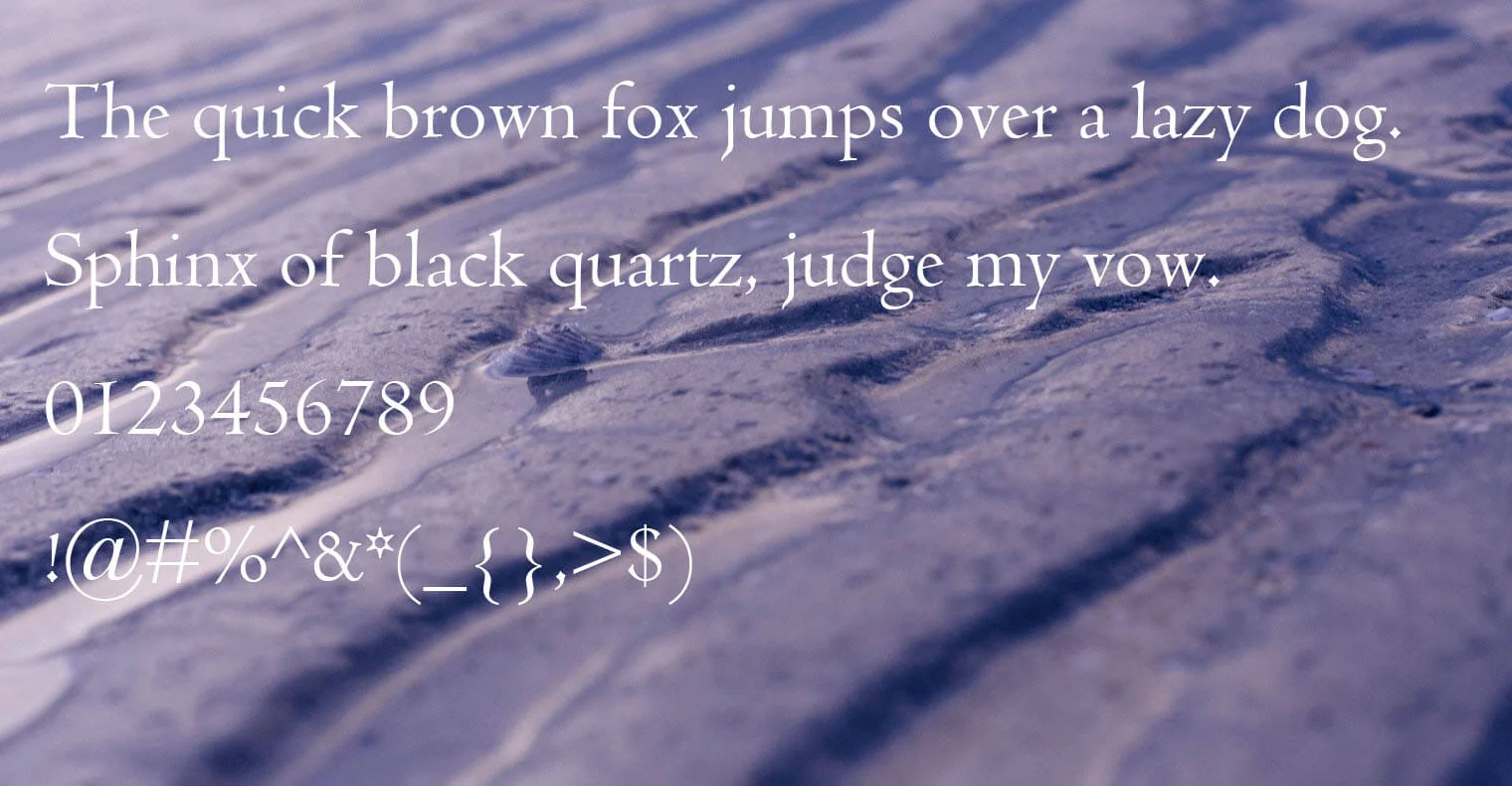
About Centaur Font
Classic serif inspired by Renaissance lettering
Font Features
- High-quality serif design
- Perfect for renaissance applications
- Excellent character coverage
- Versatile and professional